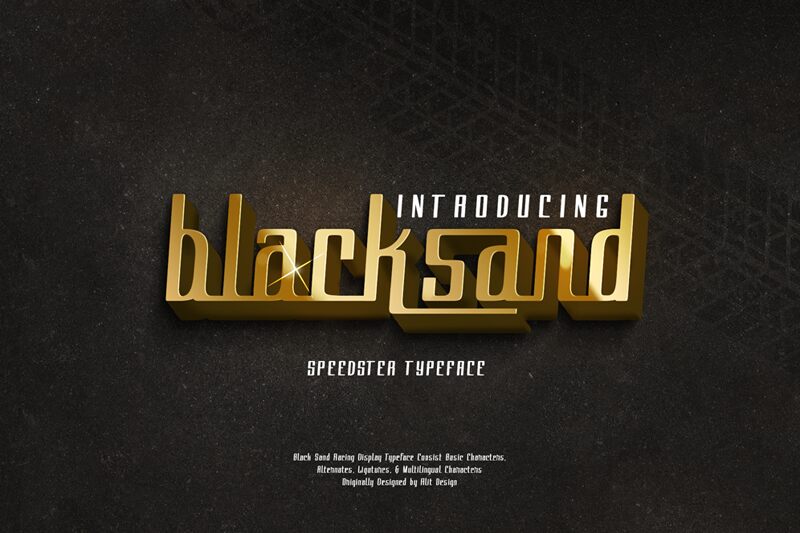
blacksand Regular
Black Sand, crafted by the talented Alit Design, is a mesmerizing display font that effortlessly combines retro aesthetics with a semi-light weight and condensed width. Perfect for adding a touch of vintage charm to your creative projects, this versatile font shines in various applications. It's an ideal choice for eye-catching logos, stylish branding materials, captivating posters, distinctive packaging designs, and even striking website headers. With Black Sand's unique blend of retro vibes and contemporary appeal, it guarantees to elevate your design game and captivate your audience in an instant.